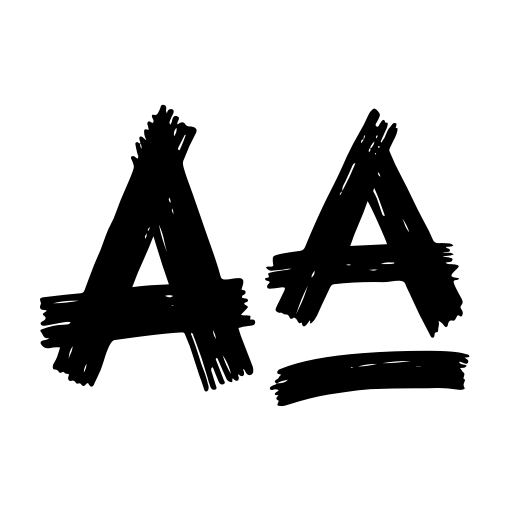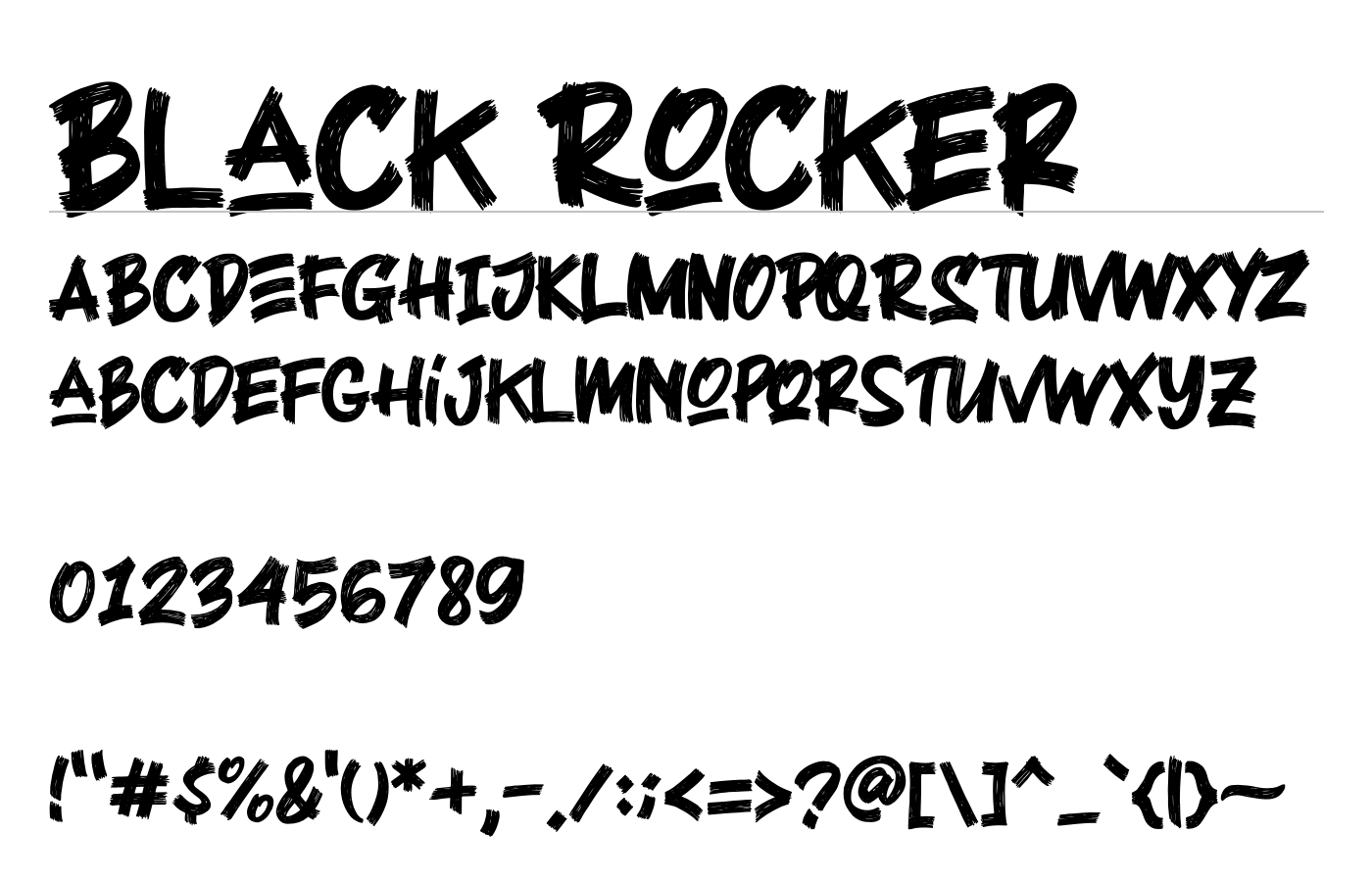
Black Rocker is a bold, energetic handwritten sans serif font that captures a rough, brush-stroke texture for a casual, rebellious vibe. Its uppercase characters show playful irregularities with strong weight and tight spacing, making it perfect for eye-catching headlines, posters, or edgy branding that needs a dynamic, hand-crafted feel. This font works well where an informal, artistic look is needed to convey creativity and youthful spirit.
Black Rocker Font
About Black Rocker Font
| Font family | Black Rocker Font |
| Designer | Letterara |